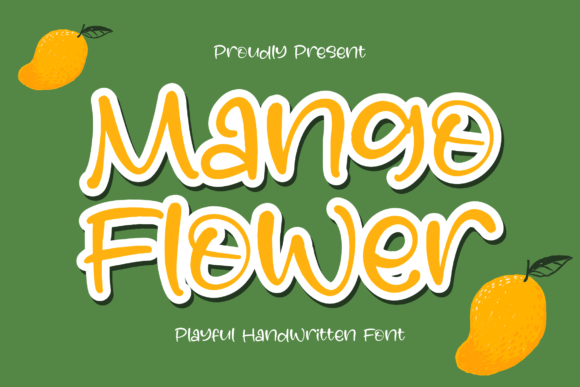
Welcome to the realm of Mango Flower Font, where creativity blooms like a vibrant garden. Step into a world where your words dance gracefully, adorned with the allure of a handwritten masterpiece.
Mango Flower Font, a script font born from the heart of Perspectype, embodies a youthful exuberance that will invigorate your designs. Its playful curves and energetic strokes evoke a sense of carefree joy, inviting you to express your individuality with a touch of whimsy.
Whether you're crafting professional designs for branding, labels, websites, or business cards, Mango Flower Font adds a touch of sophistication that will elevate your creations. Its versatility extends to casual designs as well, where its charm shines through in packaging, posters, flyers, quotes, and more.
Imagine your invitations adorned with the delightful script of Mango Flower Font, carrying the promise of an unforgettable celebration. Let your social media posts bloom with creativity as you share your thoughts and experiences in a font that speaks volumes. From heartfelt messages to witty observations, Mango Flower Font transforms your words into works of art.
With Mango Flower Font, every design becomes a canvas for expression. Its charm will captivate your audience, leaving a lasting impression that resonates long after they've turned the page or scrolled through their feed.
Dive into the world of Mango Flower Font today and let your creativity blossom like never before. Embrace the playful spirit, the endless possibilities, and the joy of creating with a font that inspires and delights.